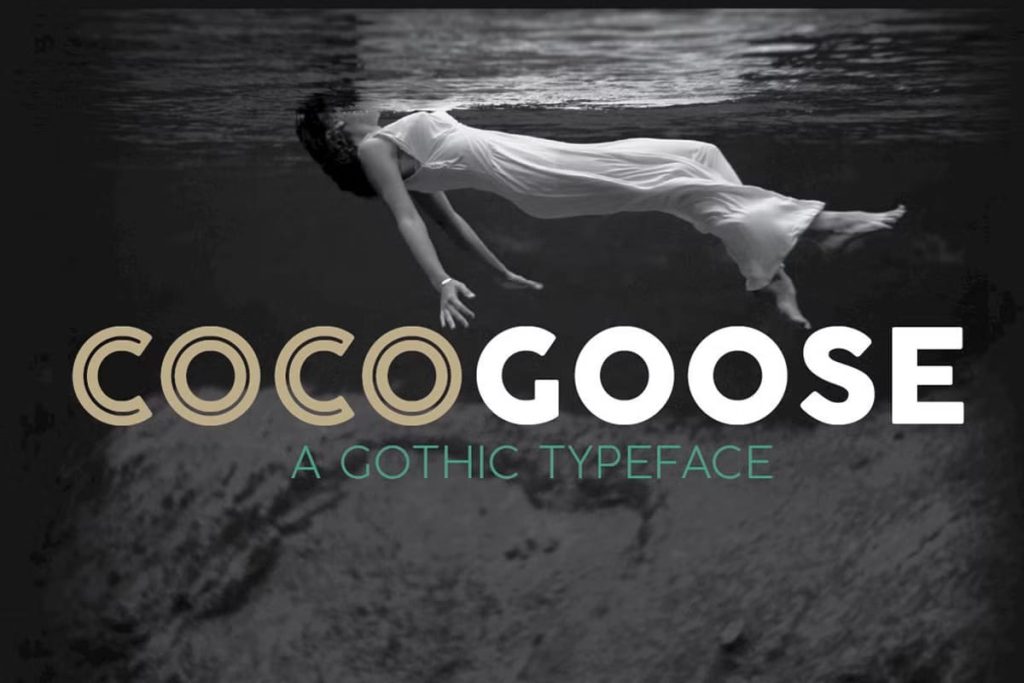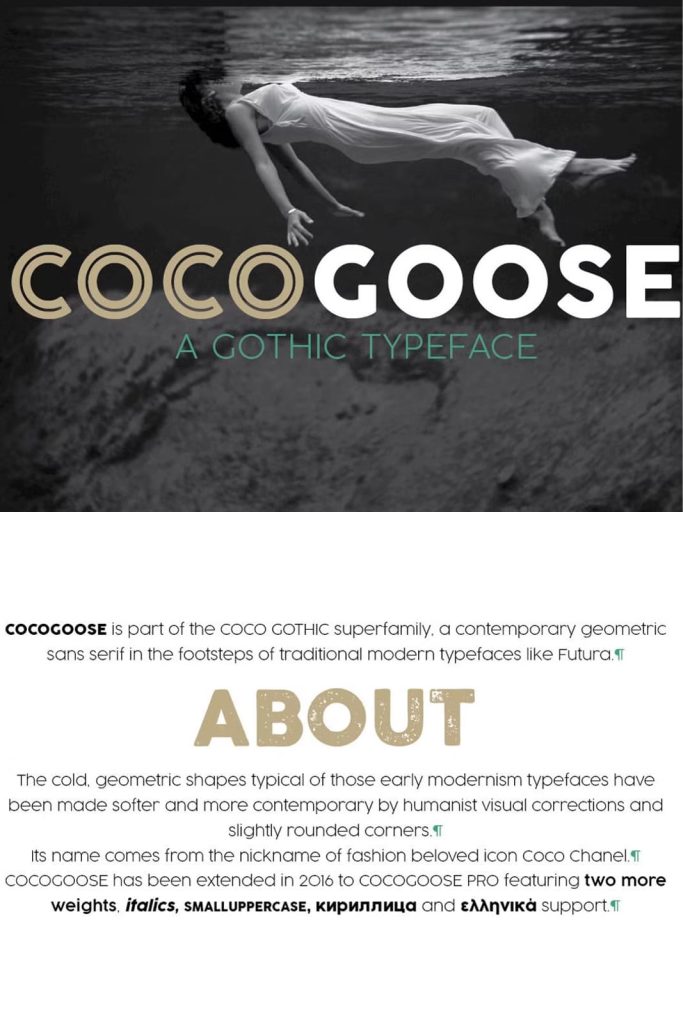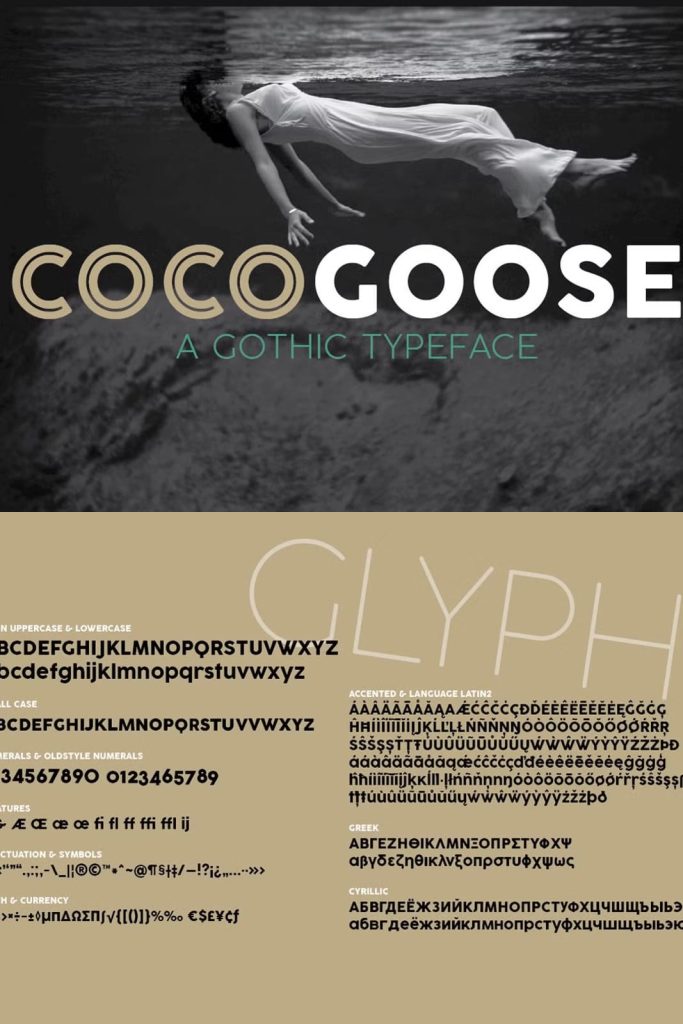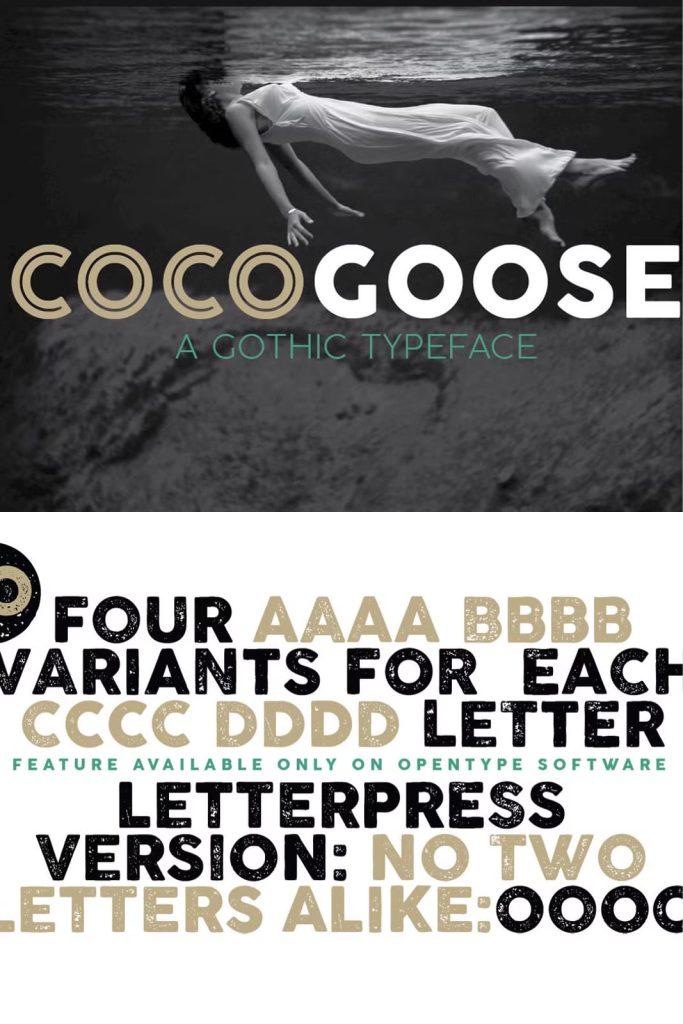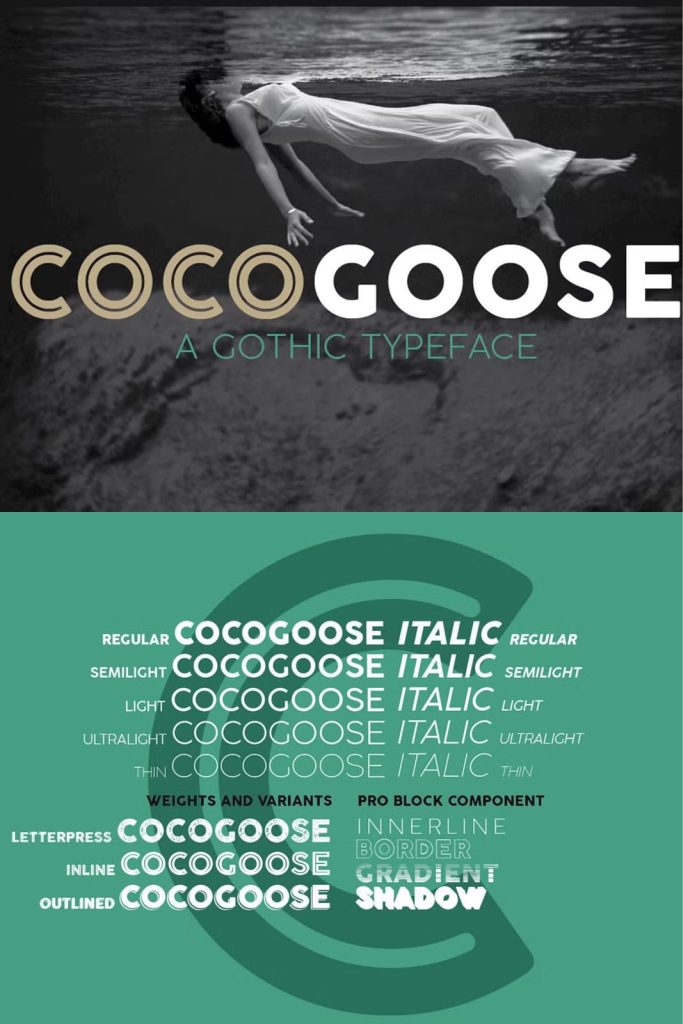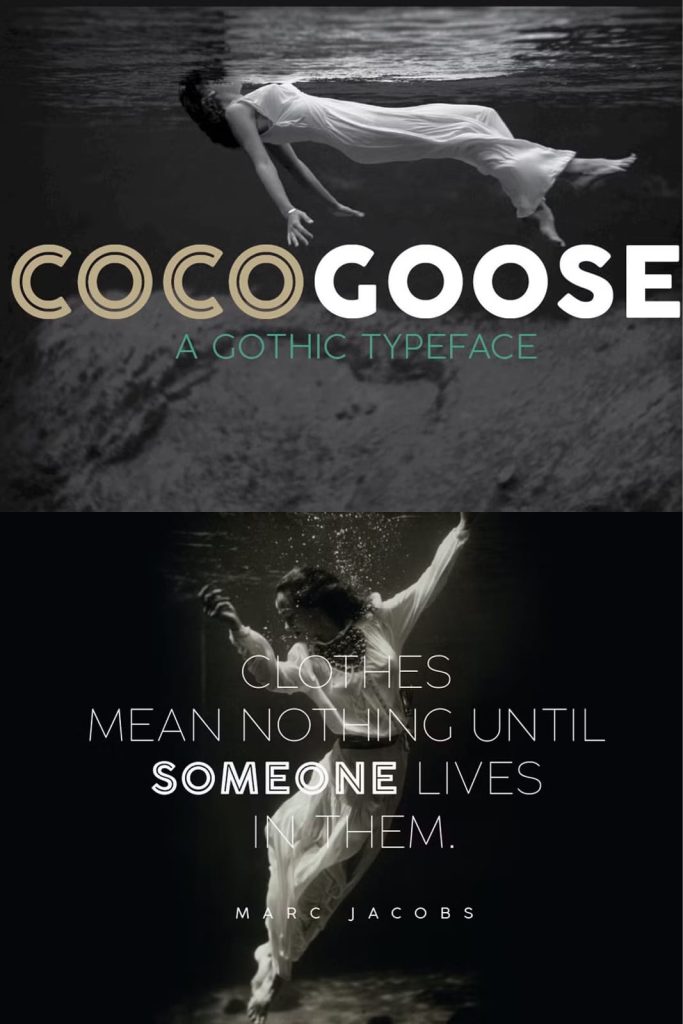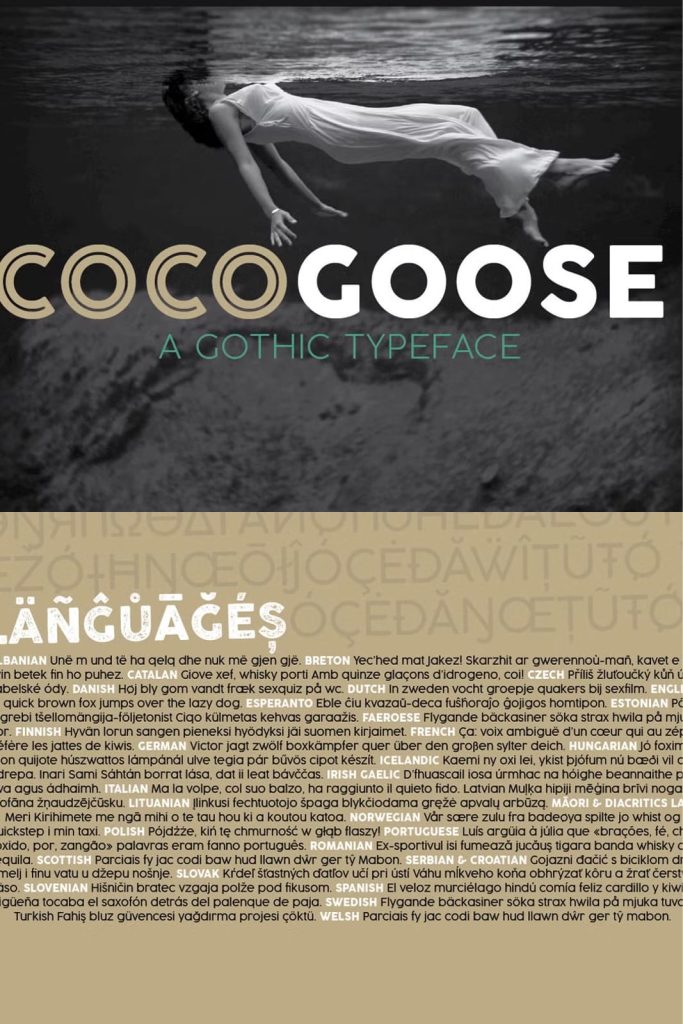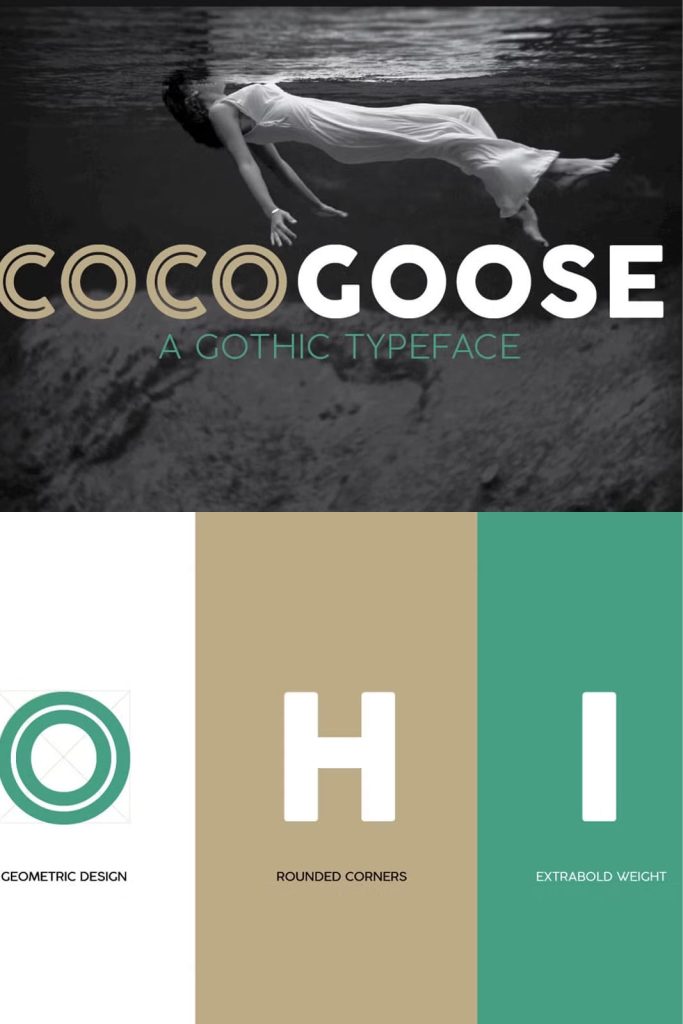
Cocogoose is a geometric sans serif typeface designed with straight, monolinear lines and circular or square shapes. Its strong, modernist look has been softened by rounded corners and slight visual corrections that make Cocogoose not only perfect for logos and headings with a vintage feel, but also very readable as a text font, thanks to its generous x-height. Its strong character makes it ideal for display uses. It comes with five weights, from regular to thin, as well as featuring four display variants: letterpress, inline and outlined.
The original Cocogoose issued in 2014 has been completely redesigned in 2016 with a pro version that includes small capitals, old style numerals, full cyrillic and greek character set, better screen performance and a set of four overlapping decorative display versions: Block Shadow, Block Innerline, Block Border, Block Gradient.